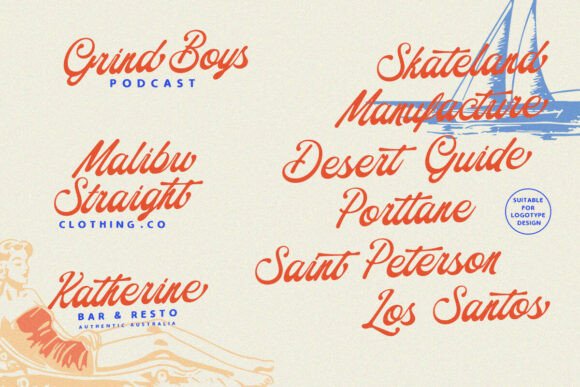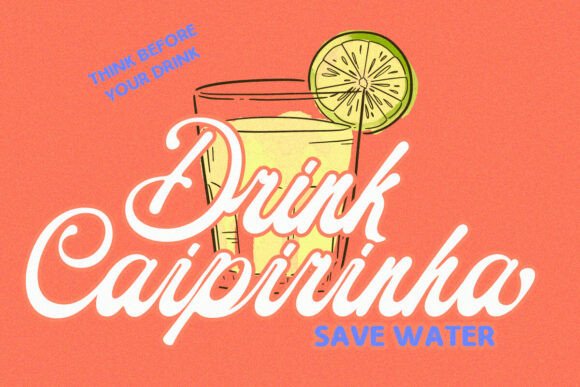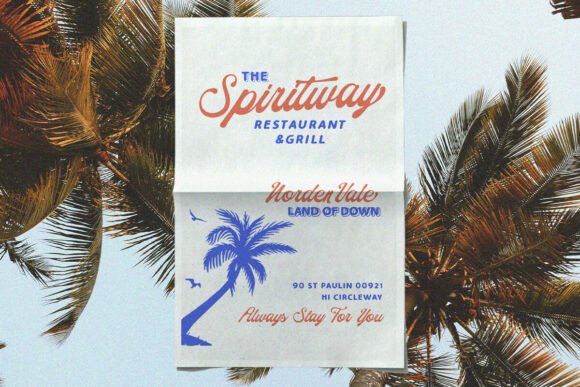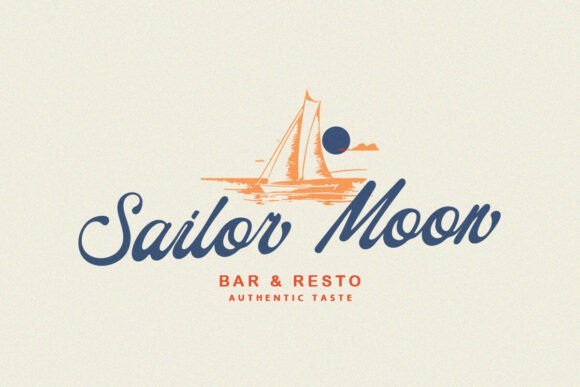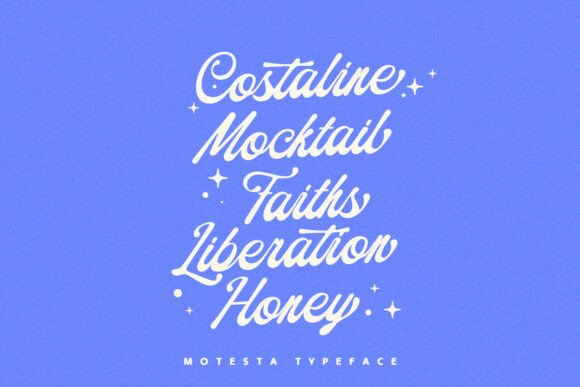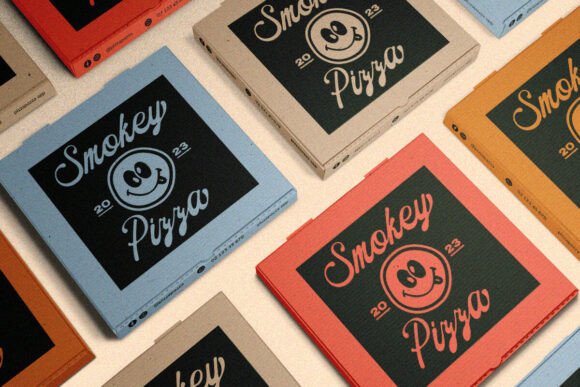
Introduction to Motesta Script Font
As a designer, there’s nothing quite like the thrill of bringing a creative project to life. You’ve spent hours brainstorming, sketching, and refining your idea – and now it’s time to choose the perfect font to make it shine. For those looking for a high-quality, vintage-inspired script font that exudes authenticity and character, Motesta Script Font is the perfect design resource.
With its unique blend of modern and classic elements, Motesta Script Font is a versatile and practical choice for any creative endeavor. Whether you’re designing logos, hand-lettered quotes, or product packaging, this dynamic handwritten typeface is sure to deliver a memorable, handcrafted impression. And the best part? With PUA encoding and full compatibility with OpenType-enabled software, accessing all alternates and special characters is a breeze – no need to worry about tedious downloads or complicated setup.
Key Features of Motesta Script Font
- High-quality design resource ideal for creative projects, including invitations, logos, and more.
- Designed with a high-resolution aesthetic, ensuring crisp and clear typography in print and digital applications.
- Perfect for designers and artists seeking a unique and elegant script font to elevate their creative project.
Honest Review: Motesta Script Font
- Beautiful, elegant script design that’s perfect for creative projects
- Great for adding a touch of sophistication to your designs
While the Motesta Script Font is a great choice for many projects, it does have some limitations:
- Only one style available, which may limit its versatility
- Not ideal for use in bold or condensed text
Motesta Script Font
Tips for Getting the Most Out of Motesta Script Font
Use the Motesta Script Font in combination with other fonts to create a unique and visually appealing design. Experiment with different font sizes, colors, and styles to add depth and interest to your project.
The Motesta Script Font is ideal for creative projects such as wedding invitations, branding materials, and social media graphics. Its high-quality design and transparent background make it perfect for use in digital and print media.